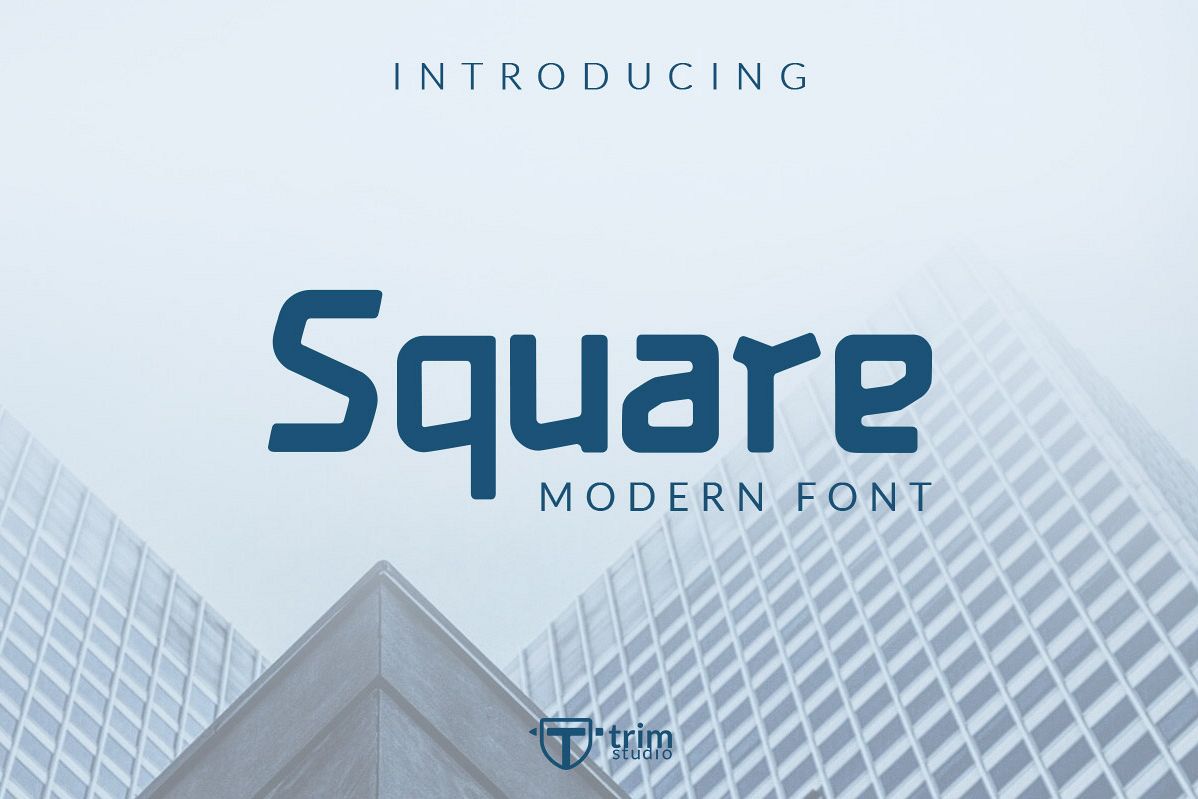
Square - Display Games Font
The Square is a striking display typeface. Its strong shape makes it perfect for industrial designs, games, aerial, tech company’s, and much more!